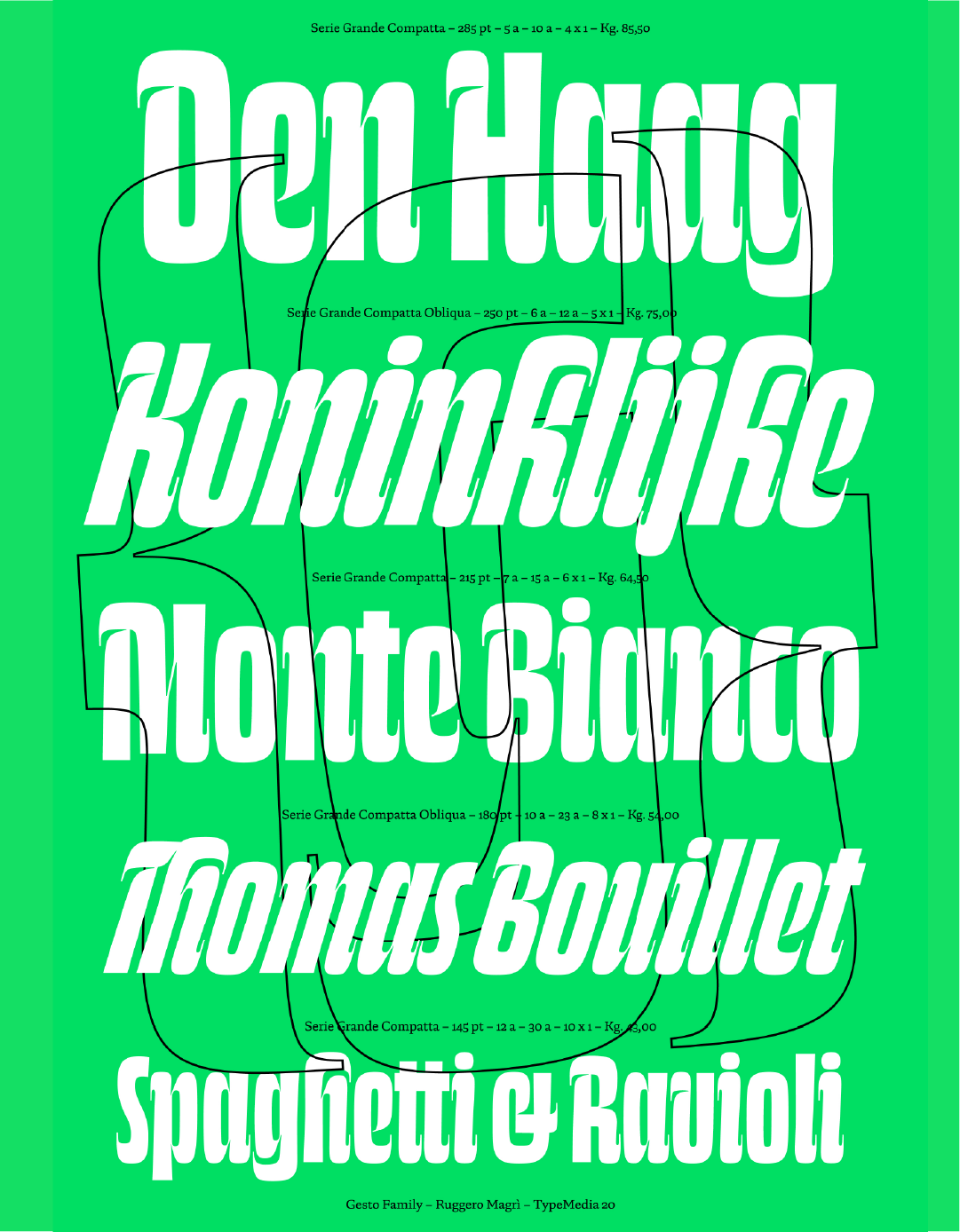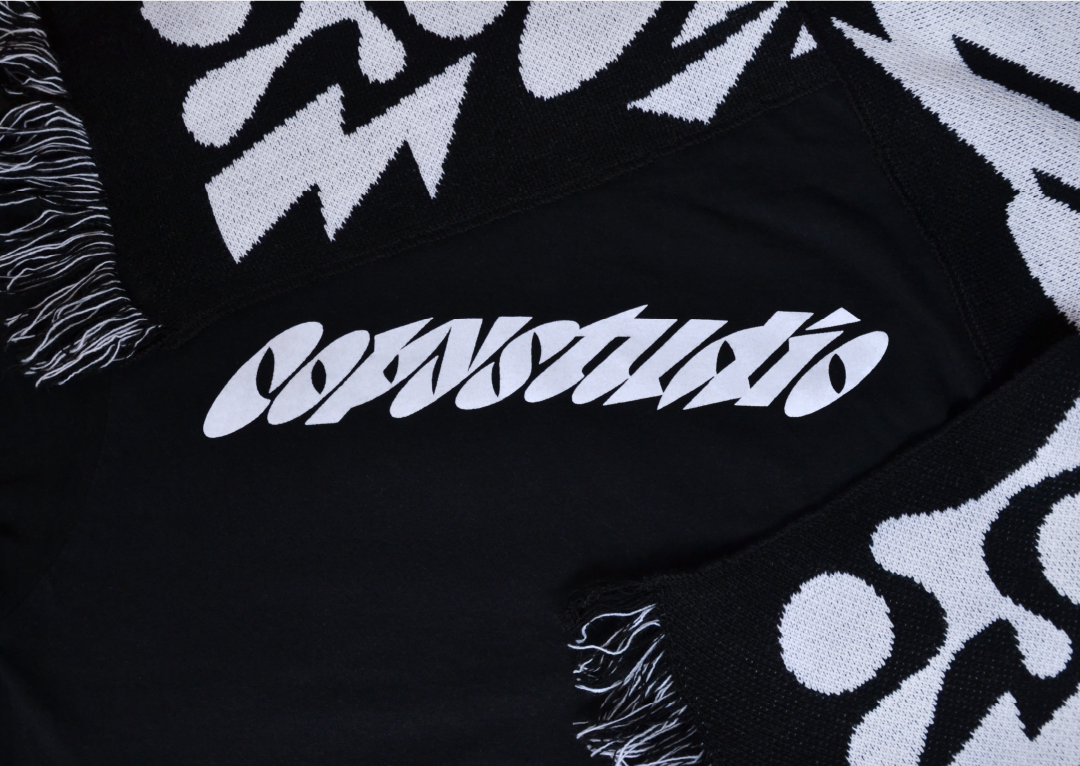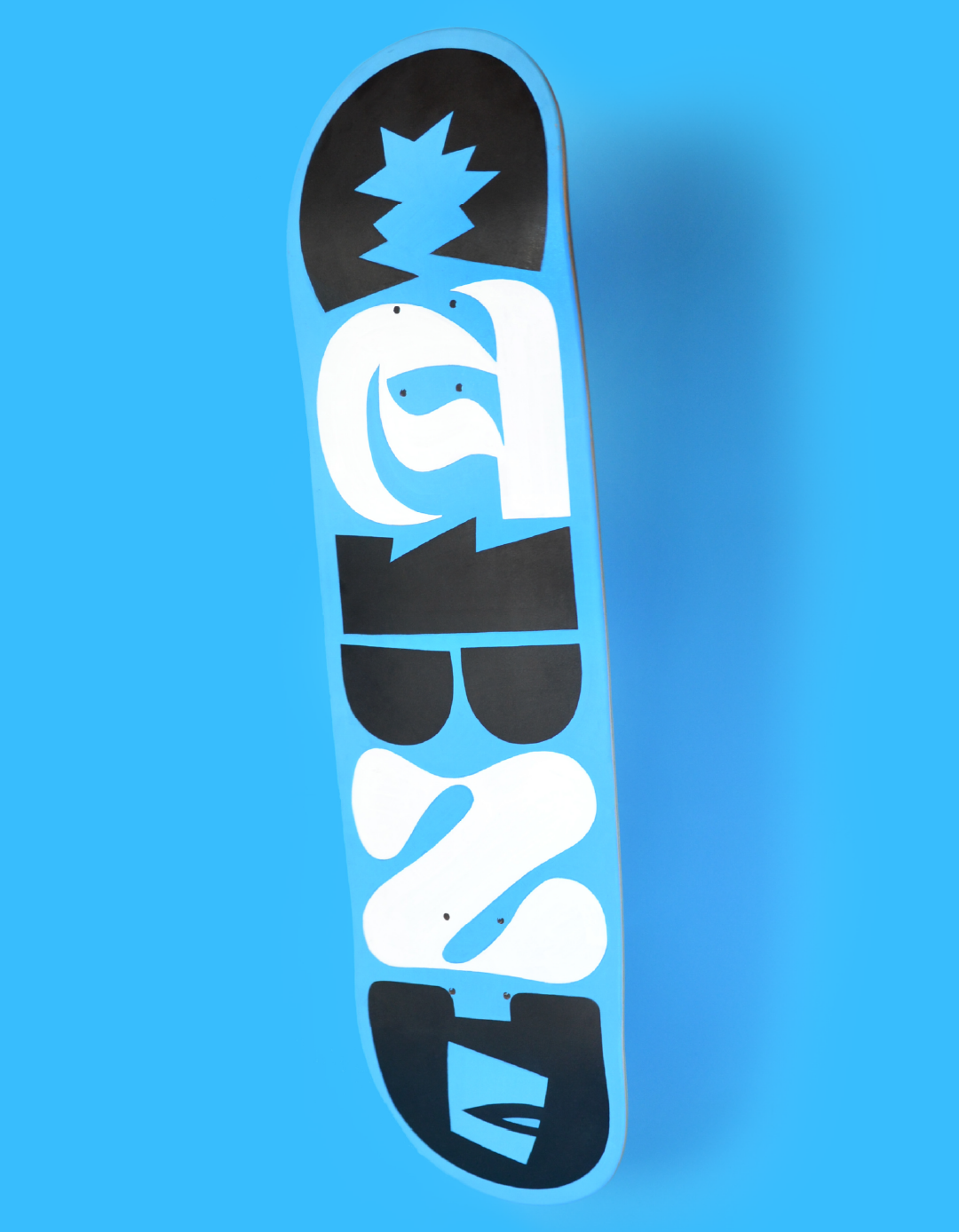
Ruggero Magrì is an independent Type designer and Lettering artist from Italy. He enjoys drawing outspoken letterforms while playing with strong and vibrant color palettes. Both analog and digital, any media attracts Ruggero and pushes him to research new expressive possibilities. During his career, he drew typefaces for several type foundries such as ABC Dinamo, Typotheque, DJR, Typofonderie and Newlyn and taught type design at Politecnico di Milano and IED Turin. In 2019 he won the SOTA Catalyst Award, in 2021 he received the Certificate of Typographic Excellence and in 2023 he was a nominated Ascender for the TDC.
On a side note, Ruggero Magrì is TypeParis18 alumni.